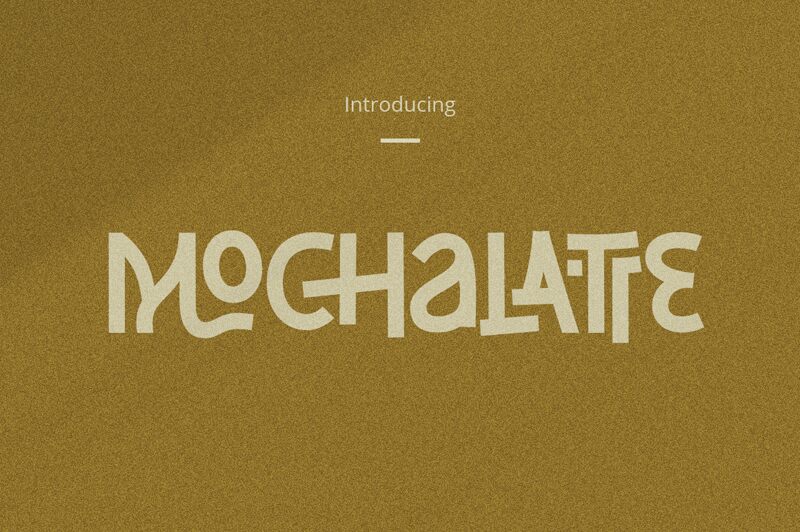
Mochalatte, a creation by Grontype, embodies a modern twist on elegance, with its bold and smooth contours similar to the swirls of cream in your favorite coffee. The font's substantial presence commands attention, making it an ideal choice for headlines that need to stand out or branding that aims for a touch of sophistication. Its expansive letters convey confidence and clarity, inviting readers into the message with warmth and style.
Perfect for display purposes, Mochalatte's stylish allure makes it well-suited for upscale marketing materials, magazine titles, or any design project where a striking visual impression is desired. Its chic and polished look will enhance the aesthetic of luxury goods branding or creative arts promotions, ensuring that any text dressed in Mochalatte is not just read but felt and remembered.